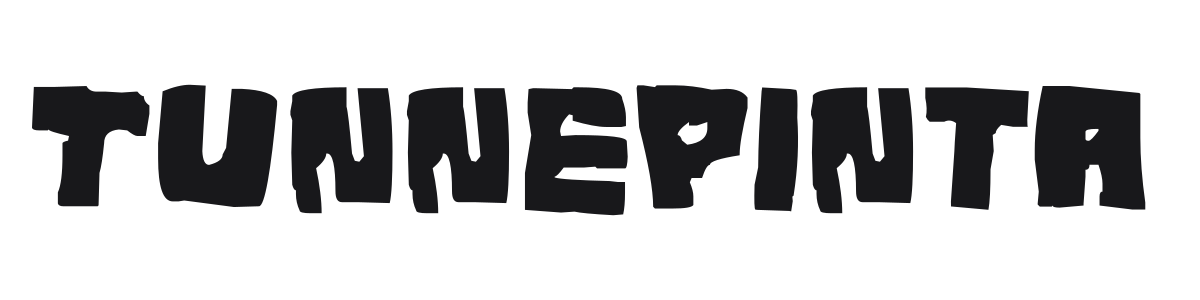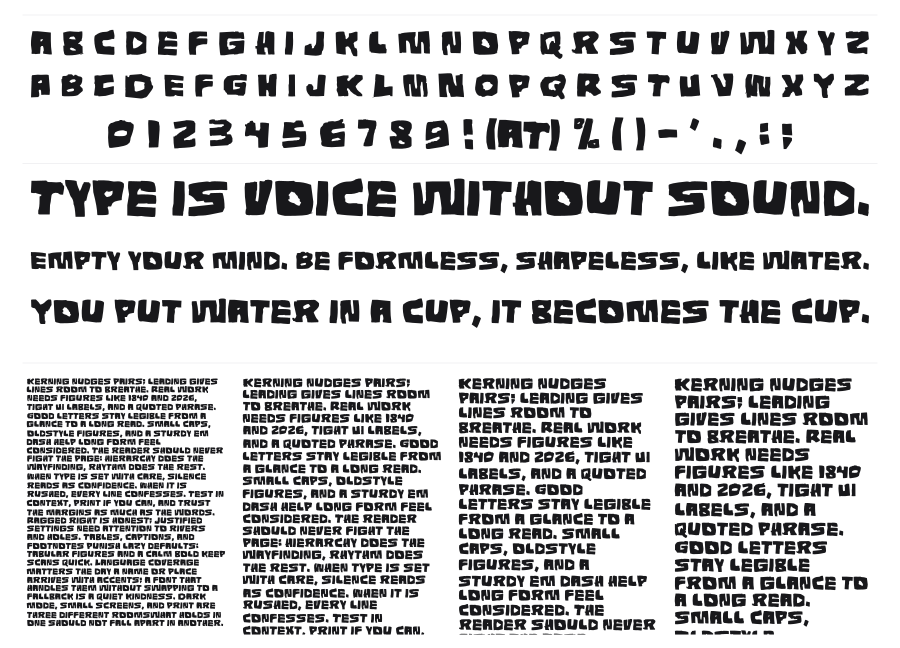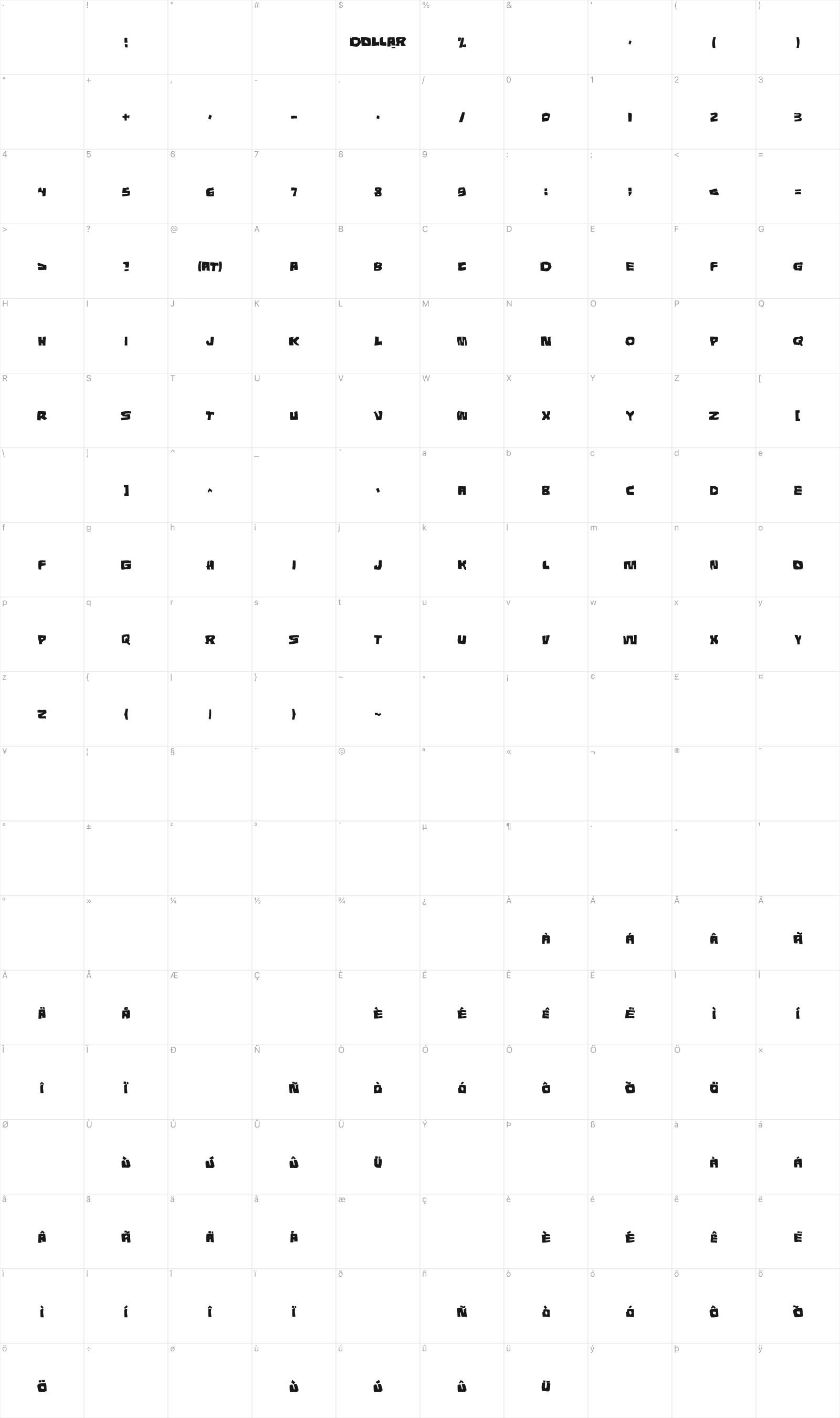
Tunnepinta
Tunnepinta is a heavy distressed display font by junkohanhero with rough, gnawed edges that make each character look physically damaged. The chunky, blocky construction keeps it legible at large sizes while the extreme texture gives it serious grit. It has the energy of a concert poster or a horror-punk zine.